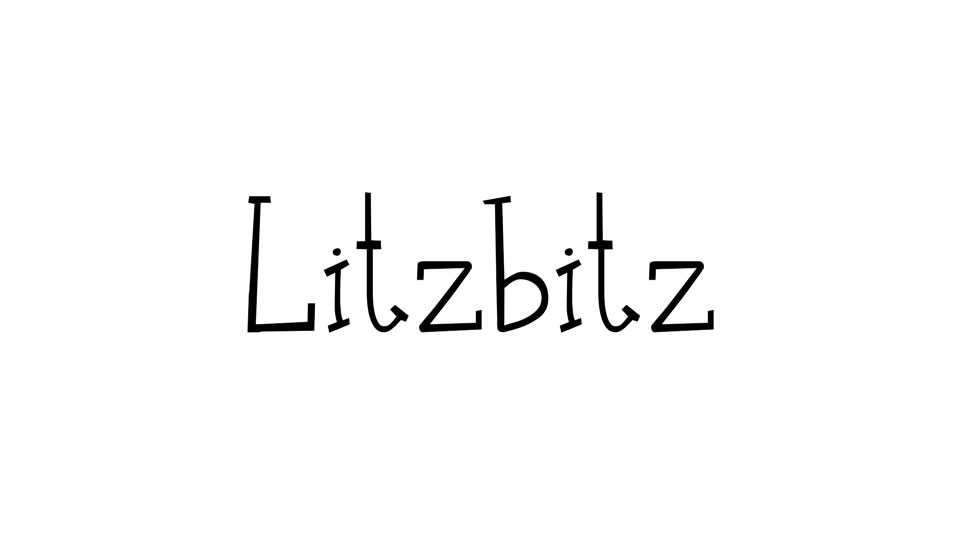
Download Litzbitz font, a typeface design inspired by the memory of the designer’s sister’s handwriting, when they were children.
Designer: Katharina Hoeppel